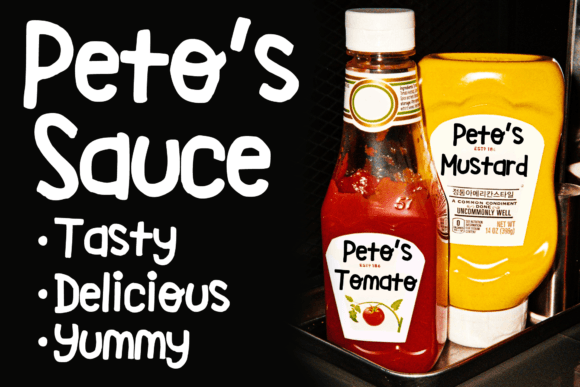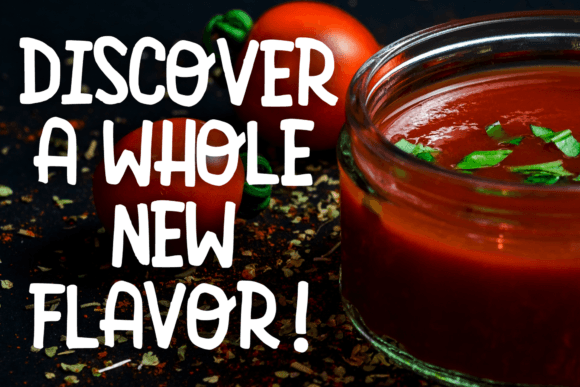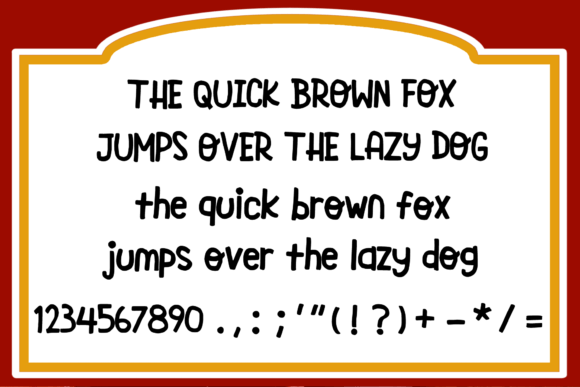
Introduction to Ketchup Foodie Font
Ketchup Foodie is a fun decorative and playful handwritten font.
You can use it for anything ranging from t-shirts, book designs, packaging, food menu and greeting cards to stickers and posters, or anything that needs a casual touch, it will be your perfect font to pick Fall in love with its incredibly versatile style, and use it to create lovely designs.
Why Choose Ketchup Foodie Font?